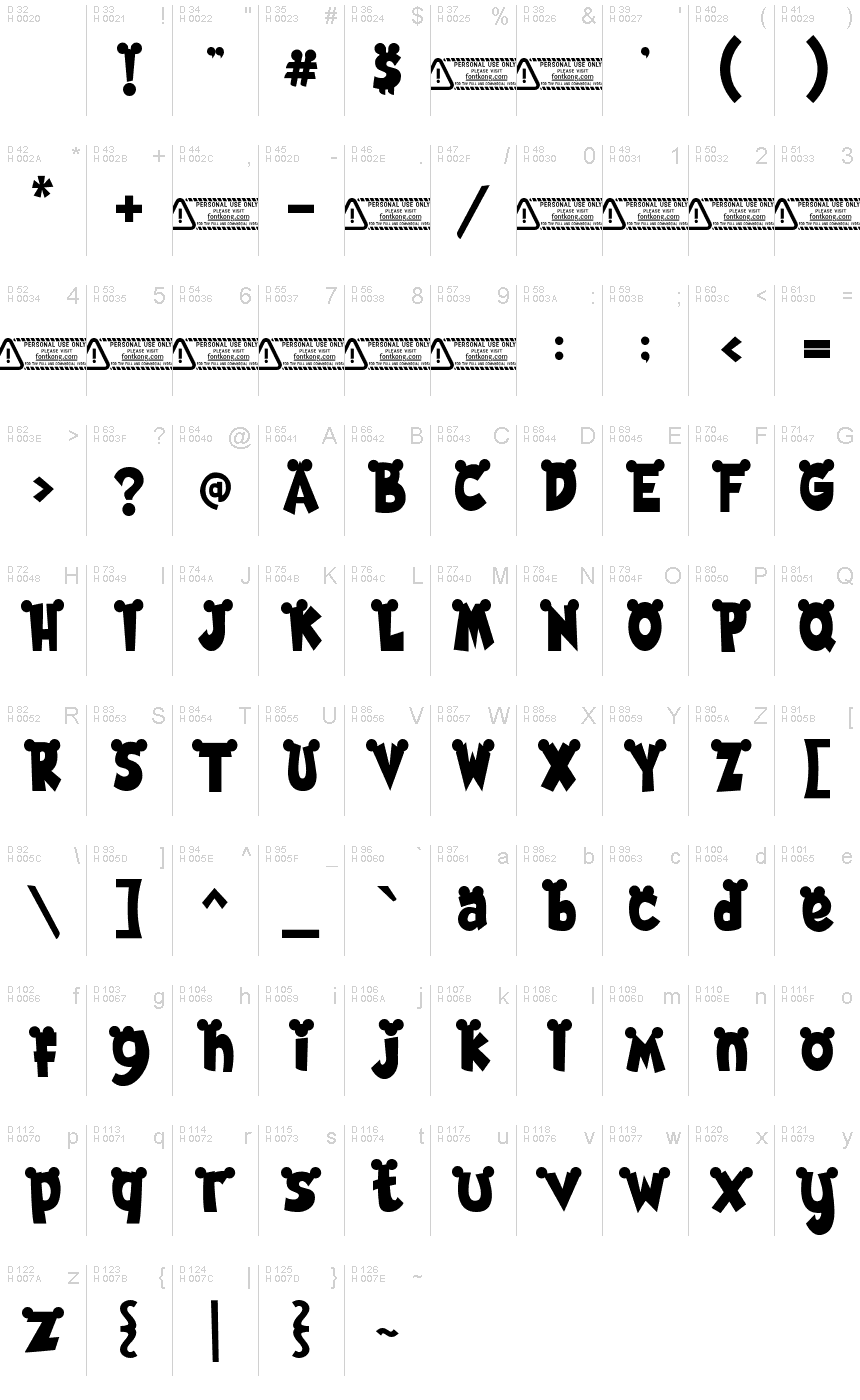
Minnie
Minnie, a playful creation by Kong Font, is a display font that exudes charisma with its cartoon-inspired style. The bold weight of Minnie makes a confident statement, while the semi-condensed width ensures that its presence is felt without overwhelming the canvas. With whimsical touches that evoke the fun and innocence of classic animation, this font leaps off the page and invites creative exploration.
Visually striking, Minnie harnesses an aesthetic appeal that is both nostalgic and delightfully modern. Its rounded forms and friendly curves make it an excellent choice for projects aimed at younger audiences or any endeavor looking to capture a sense of joy and whimsy. Whether it's used in branding, children's literature, or playful advertising campaigns, Minnie promises to infuse your project with personality and charm.